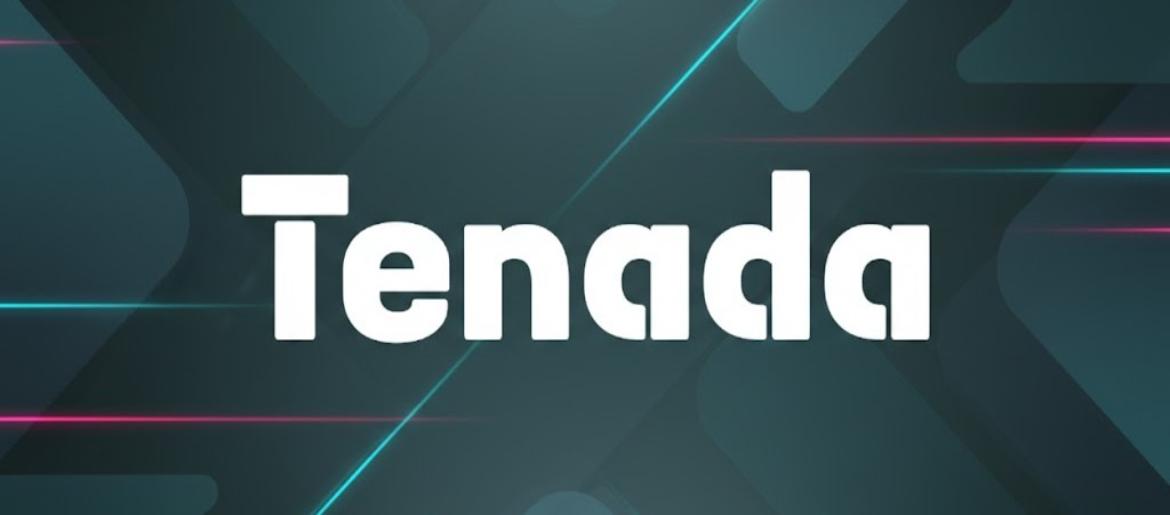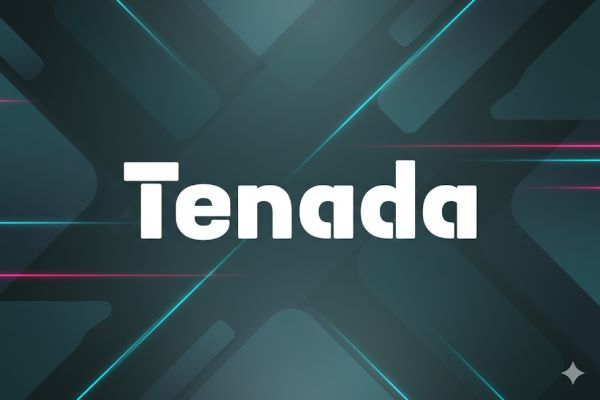
Tenada Font
Tenada Font is a modern display typeface featuring a sleek stencil design created by Tenada. It supports English, Korean, Latin-1 Supplement, Latin Extended-A, Cyrillic, Greek, and Coptic, offering broad multilingual versatility. Ideal for posters, branding, headlines, and digital graphics, it delivers a futuristic and structured look while standing out among versatile free fonts for global creative projects.